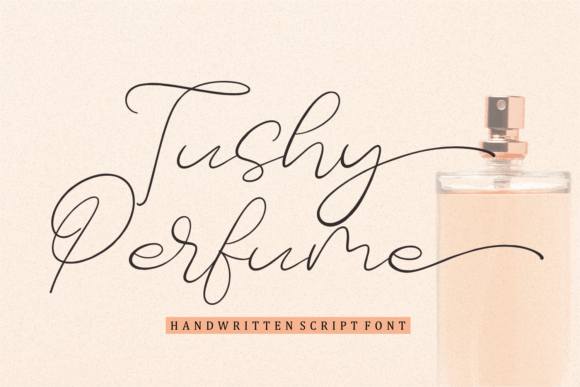
Tushy Perfume Font
About Tushy Perfume Font
Tushy Perfume is a flowing handwritten font, described by an elegant touch, perfect for your favorite projects. Fall in love with its incredibly distinct and timeless style and use it to create spectacular designs!